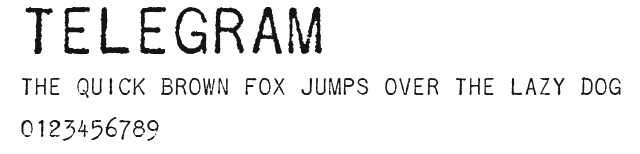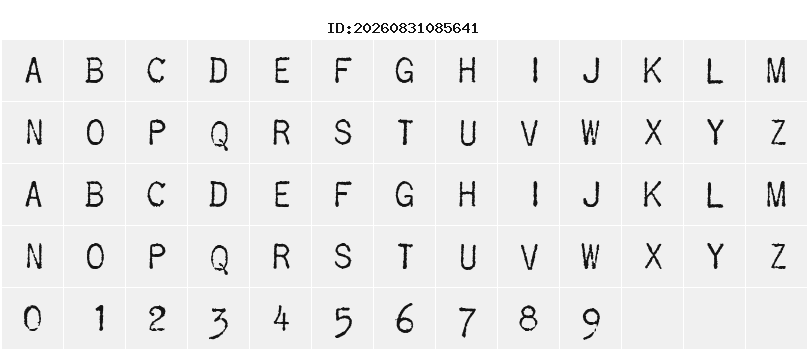
Telegram Preview
• Font Name: Telegram
• Font Style: HPLHS
• Full Font Name: Telegram HPLHS
About Telegram.ttf
Telegram.ttf is a modern, elegant sans-serif font designed for ultimate readability and visual harmony. Perfect for branding, headlines, web design, and print materials.